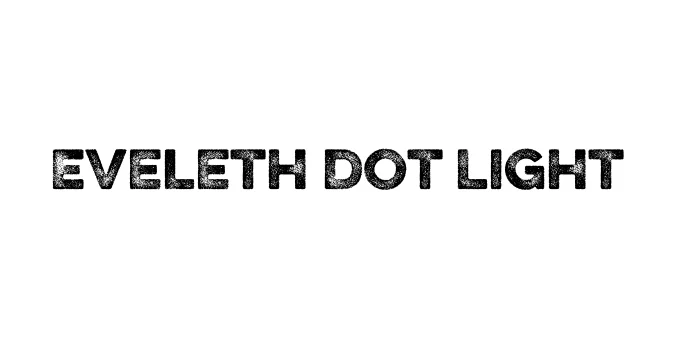
Eveleth Dot Light
Designed by Ryan Martinson (Yellow Design Studio)
| Category | Display / Retro |
| Designer | Ryan Martinson (Yellow Design Studio) |
| Similar Fonts | Veneer, Gist, Thirsty Rough, Nexa Rust |
Eveleth Dot Light is a distinguished member of the Eveleth premium letterpress family, meticulously crafted by Yellow Design Studio. This specific variant stands out for its high-resolution vintage texture, featuring a sophisticated dotted pattern that mimics traditional perforated printing techniques. Unlike generic distressed fonts, Eveleth offers an authentic, rugged charm while maintaining excellent legibility, making it a staple for designers looking to inject a sense of history and craftsmanship into their digital projects.
The family consists of several sub-families, but the Dot series is particularly unique for its ability to add depth and industrial character to typography. Each character in the Dot Light weight is designed with a careful balance of ink-bleed simulation and clean geometry. It is widely recognized for its versatility in high-end branding, packaging, and editorial design where a "hand-made" yet professional aesthetic is required. This font remains a favorite for its extensive character set and the sheer variety of distress levels available across the entire collection.
Eveleth Dot Light Best Uses
Creating unique, vintage-inspired logos and brand identities.
Adding an authentic, artisan feel to product labels and boxes.
Eye-catching headlines for events or promotional materials.
Designing rustic and trendy graphic overlays for images.